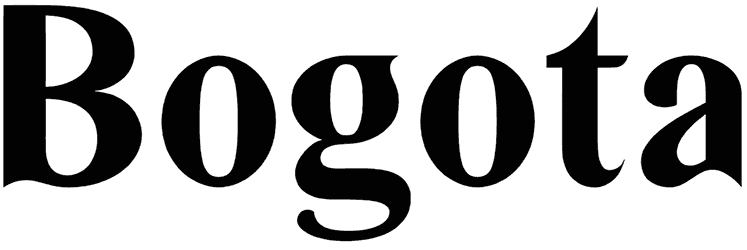
Bogota Font
Sometimes it would be better to utilize a formal serif font, such as Bogota, in your graphic content to cement your credentials as a professional designer. Due to its unique style, you can share a sense of validity, confidence, respect, or trustworthiness with the audience.
While numbers and punctuations are not included in this font, it still has the real potential to bring your posters, magazines, branding projects, stationaries, and logos to the next level.